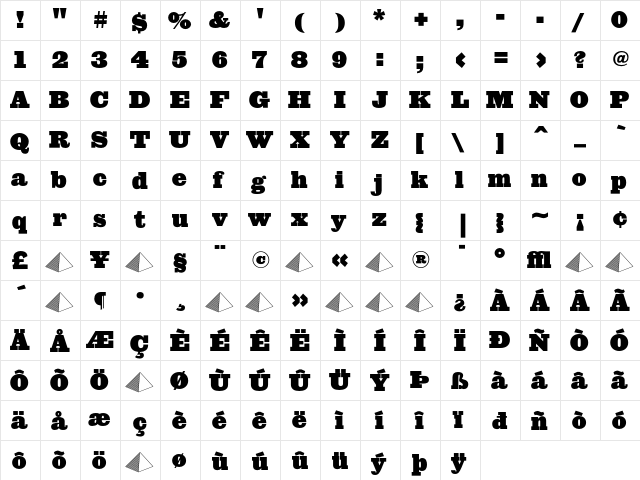
Giza SevenFive
Design Context for Giza Typeface
Giza takes a measured approach to typography — its balanced proportions and neutral character make it a reliable workhorse for both digital and print work.